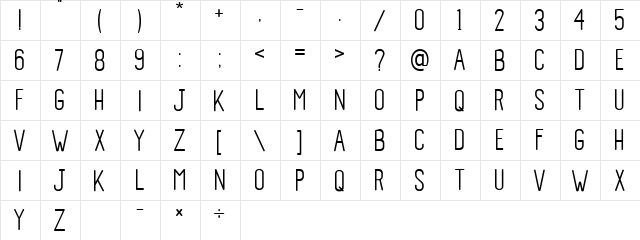
Smart Cherie Regular
| Designer | Pandanwangi2019 |
Design Context for Smart Cherie Typeface
Smart Cherie takes a measured approach to typography — its balanced proportions and neutral character make it a reliable workhorse for both digital and print work.